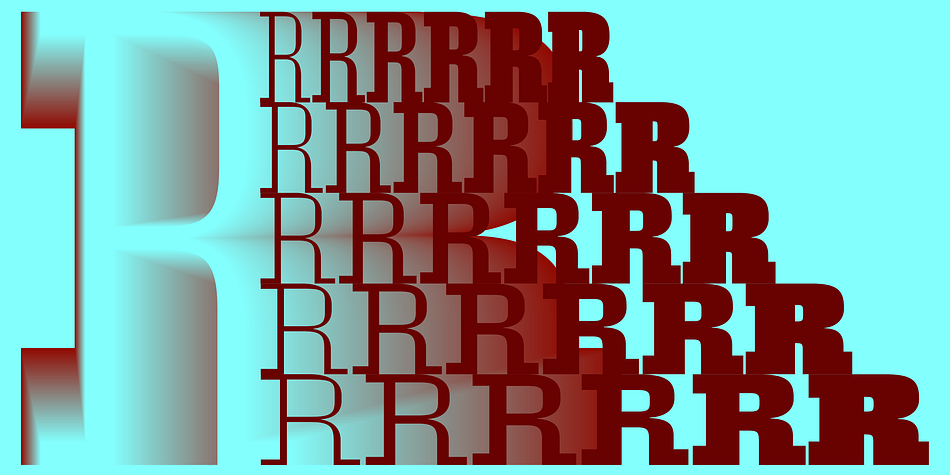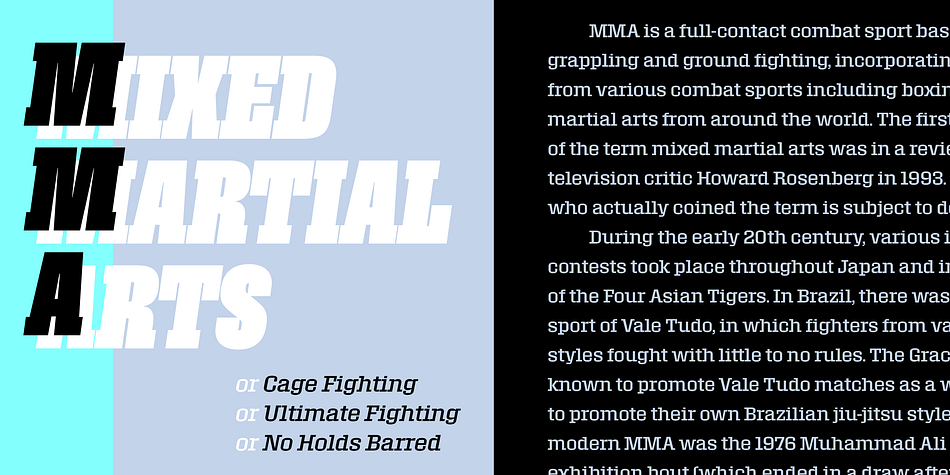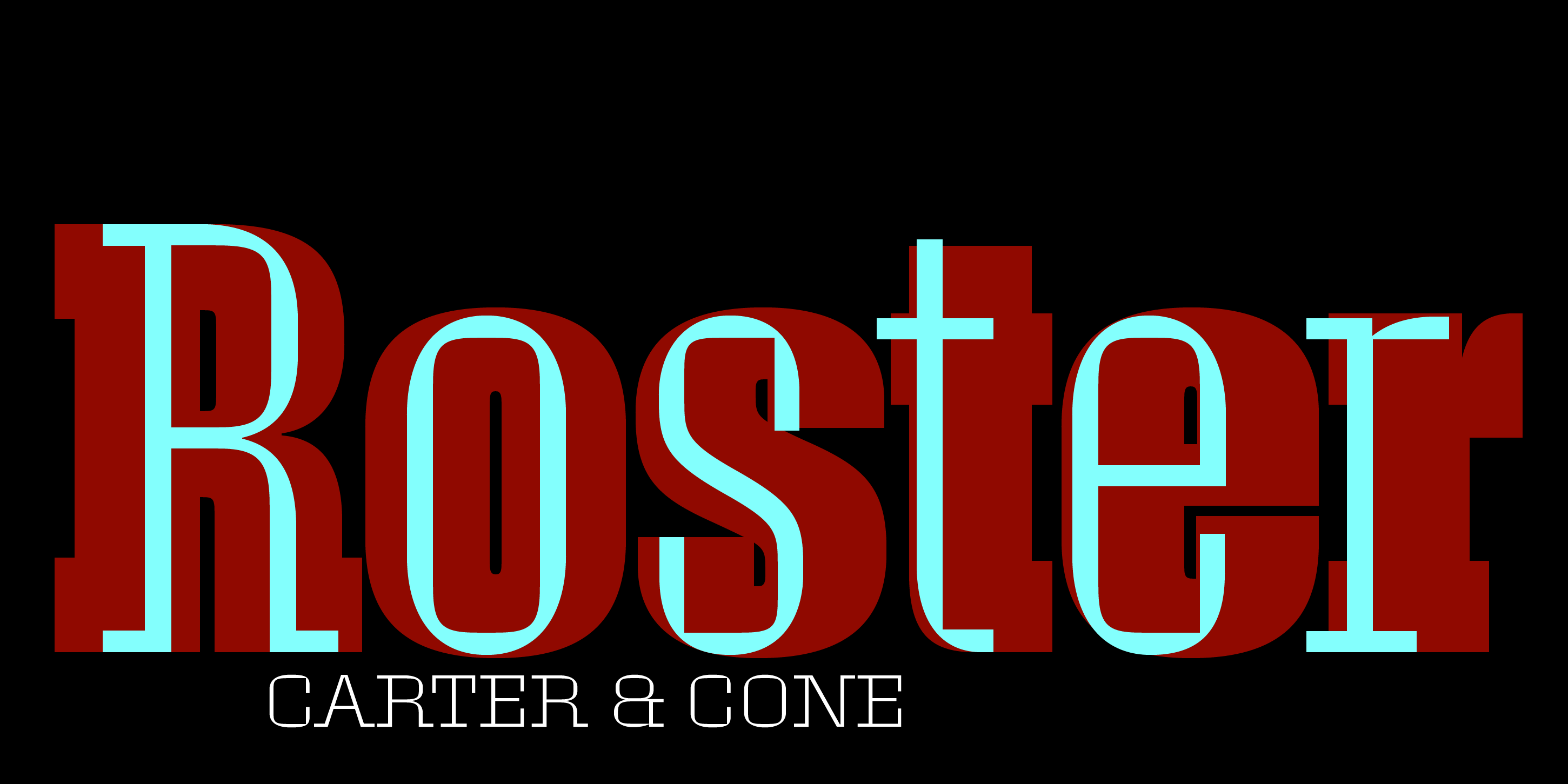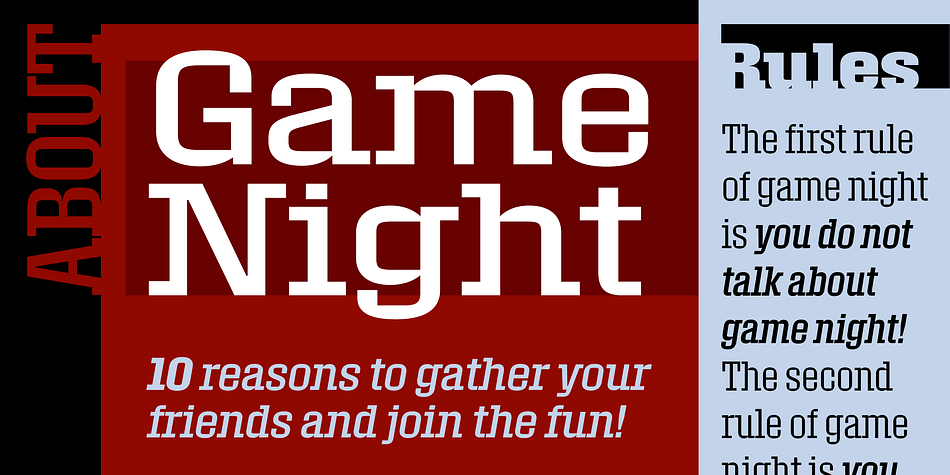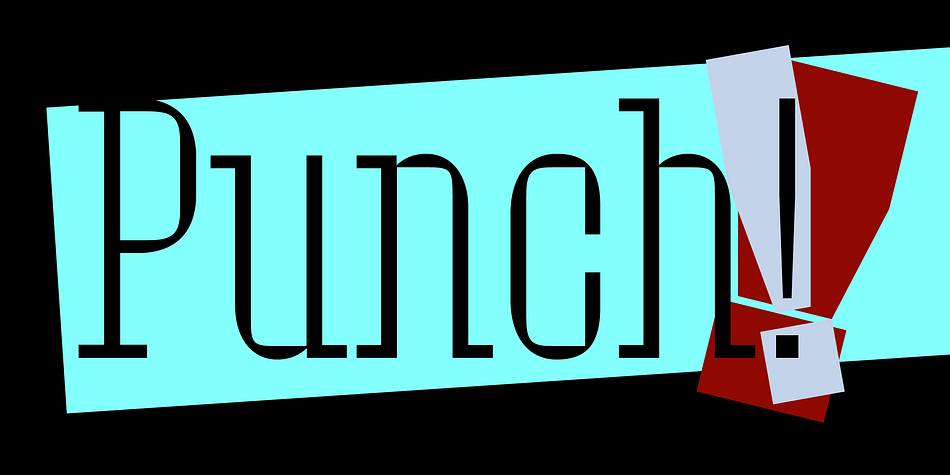
Roster
Designed by Matthew Carter and Jesse Ragan, Roster is a display slab and slab serif font family. This typeface has sixty styles and was published by Carter & Cone.
The visual tension of square corners within rounded shapes: Matthew Carter’s Roster takes this characteristic, sometimes seen in subtler form in a text face, and makes it the underlying structure of a dramatic slab-serif display family. Roster’s outer shapes are large, curved rectangles; its inner shapes have the chisel-cut clarity of counters carved out of the surrounding letter forms. The effect is both eye-catching and solid. Roster comprises 60 styles— 6 weights (Extra Light, Light, Regular, Semibold, Bold, and Black) in 5 widths (Expanded, Normal, Narrow, Condensed, and Compressed), all with Italics. Roster is a typeface intended for display: the very smallest size for it that Carter recommends is 30pt (“although the very heavy and compressed styles may need to be bigger”). It flexes its muscles best at truly large size.